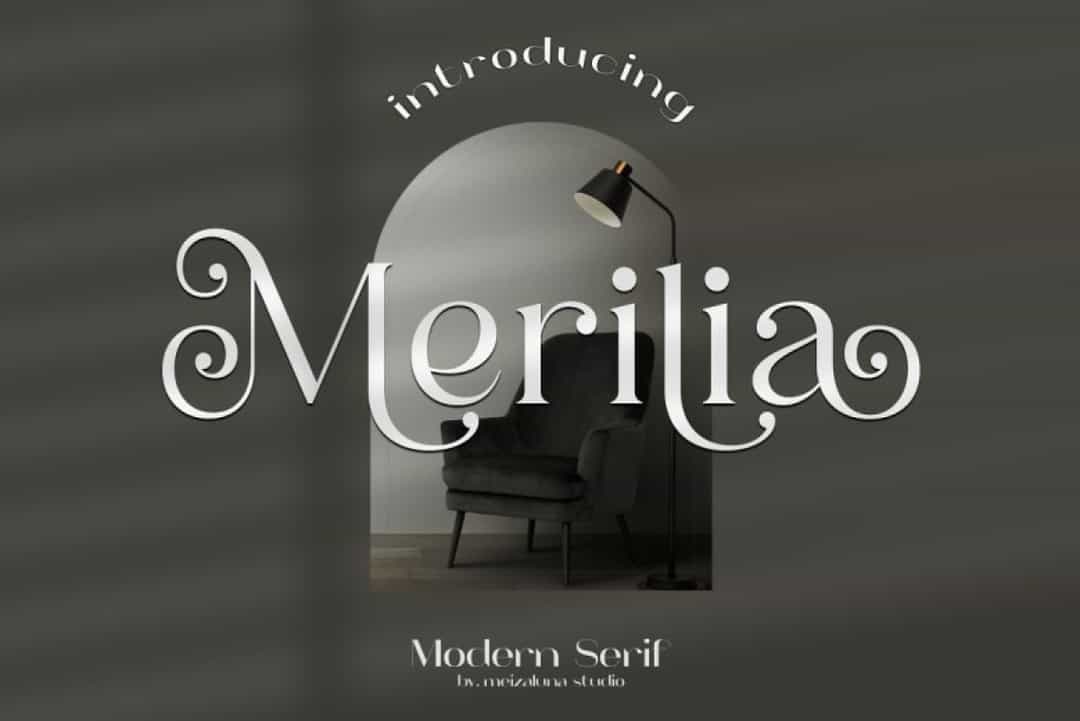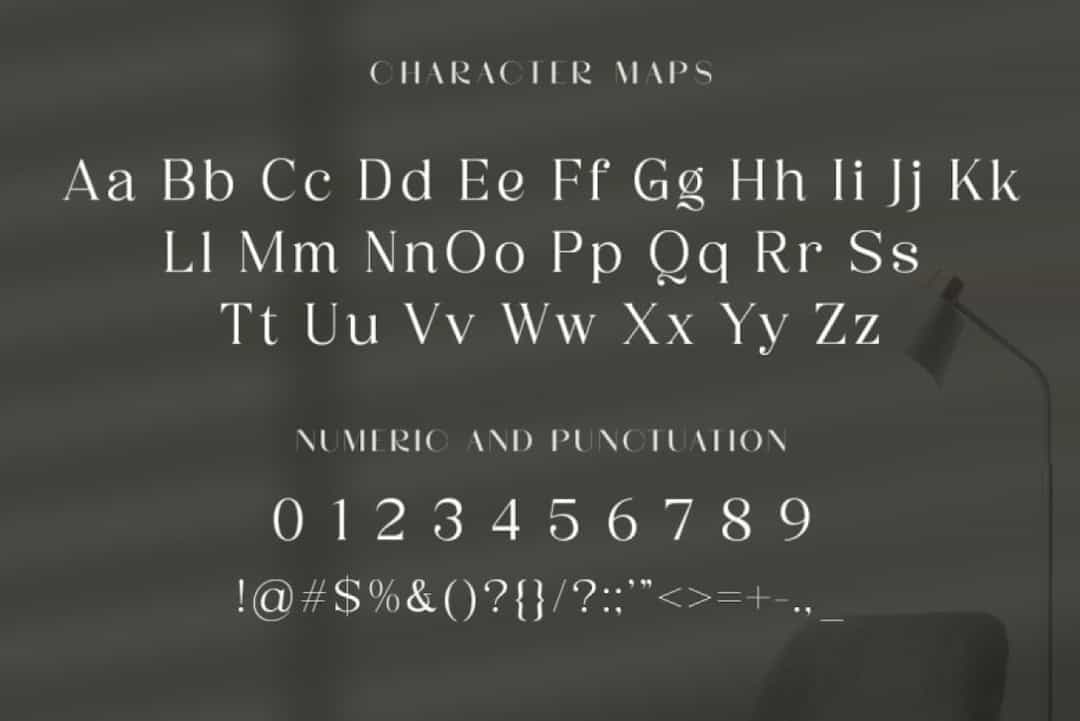
Merilia is a modern serif font featuring punctuation glyphs and numerals as well as multilingual compatibility. Additionally, there are a range of stylistic alternate fonts for lowercase characters available for this font family.